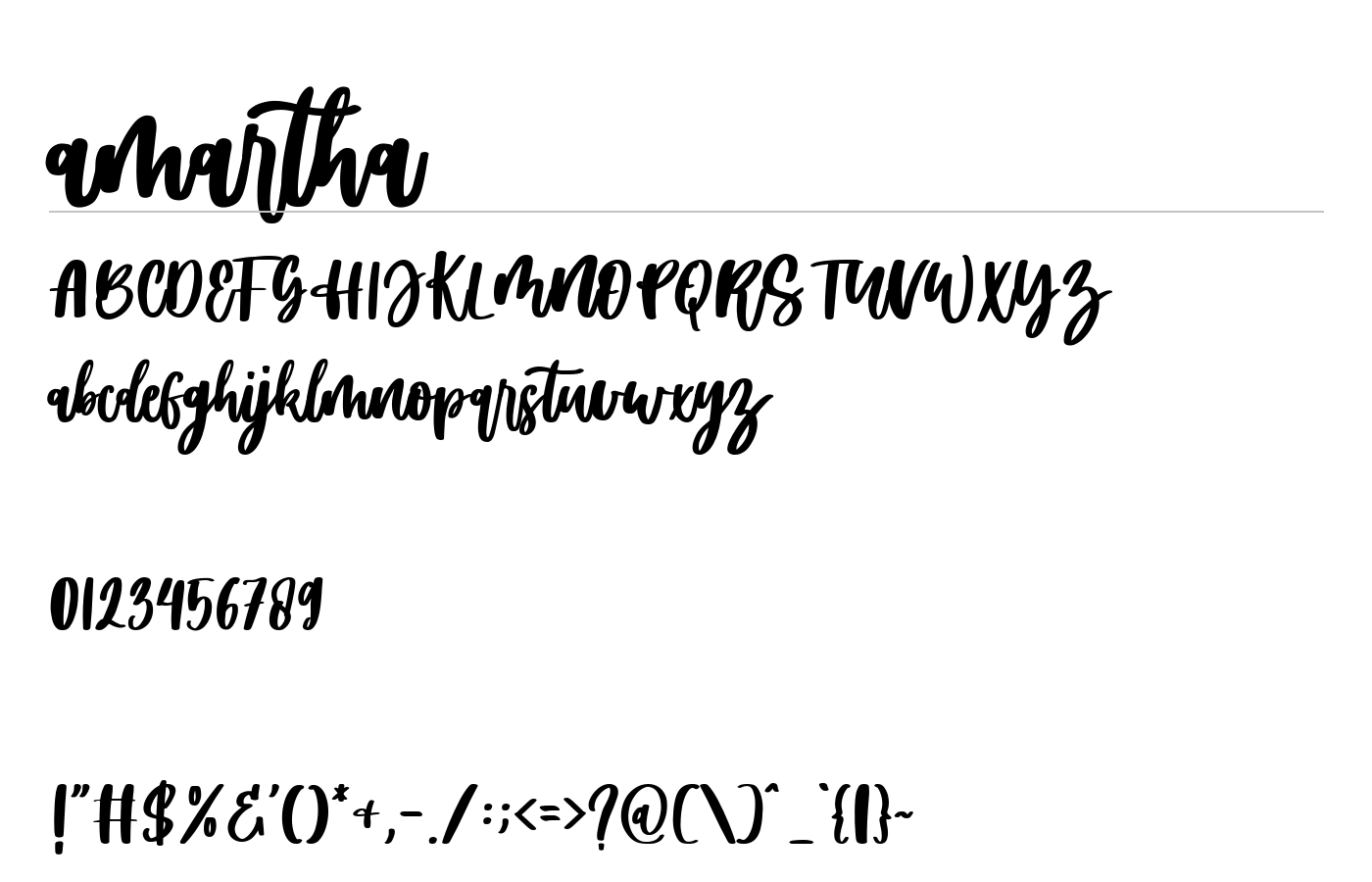
Amartha is a lively script font with a bold weight and a playful, handwritten feel. Its smooth, flowing strokes and rounded edges give it a friendly and approachable personality, making it perfect for branding, invitations, and creative projects that want to convey warmth and charm. This font shines in headlines and logos where a personal, artistic touch is desired.
amartha Font